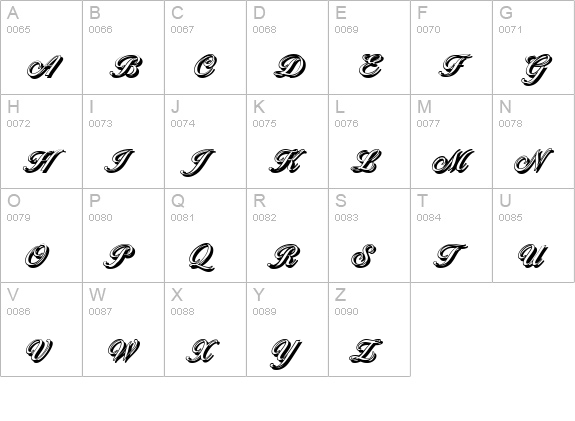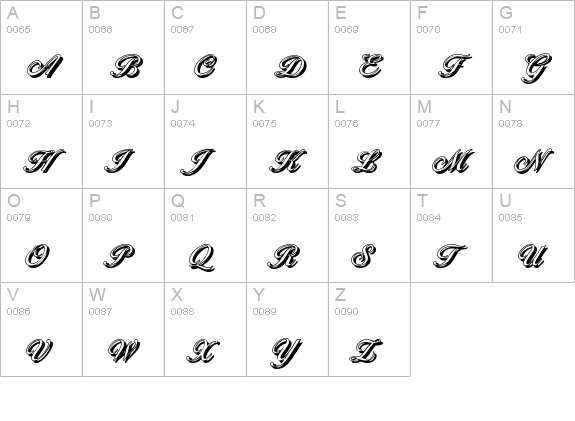
BallantinesShadow-Regular is the standard, neutral variant in the BallantinesShadow typeface family \xE2\x80\x94 well suited to general body text, paragraphs, and standard typographic work.
BallantinesShadow-Regular is a modern and stylish font that exudes elegance and sophistication. Its unique shadow effect adds depth and visual interest to any design project. Perfect for creating eye-catching headlines, logos, and branding materials, this font is sure to make a statement. What sets BallantinesShadow-Regular apart is its versatility and flexibility. Whether you're working on a print design, website, or social media graphics, this font will elevate your work to the next level. With a timeless appeal and a touch of modern flair, BallantinesShadow-Regular is the perfect choice for designers looking to make a lasting impression. Best of all, BallantinesShadow-Regular is free to download at FontsMarket.com. With just a few clicks, you can add this stunning font to your collection and start using it in your projects right away. Don't miss out on the opportunity to enhance your designs with the beauty and elegance of BallantinesShadow-Regular. Download it now and see the difference it can make!